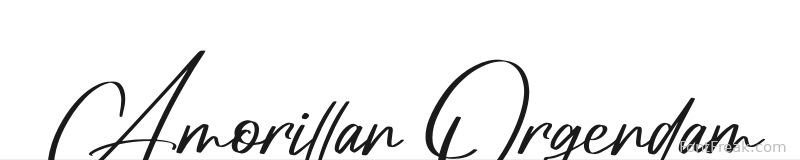
Amorillan Orgendam
About Amorillan Orgendam
The Amorillan Orgendam font by Perspectype Studio is a striking script typeface that exudes elegance and charm. This unique font, released in 2021 under a freeware license, showcases a blend of fluid curves and refined strokes, making it an ideal choice for a variety of design projects. The visual characteristics of Amorillan Orgendam include a graceful stroke weight that varies throughout the characters, creating a sense of movement and sophistication. The contrast between thick and thin strokes adds depth, while the generous spacing between letters enhances readability, ensuring that it stands out in any application.
This font is perfect for a range of specific use cases, such as wedding invitations, where its romantic flair can set the tone for a special day. It also shines on movie posters, capturing attention with its artistic flair, and serves as an excellent choice for restaurant menus, adding a touch of class that complements gourmet cuisine. Small business owners can leverage the Amorillan Orgendam font for branding purposes, making their logos and promotional materials visually appealing to attract customers.
Targeting graphic designers, content creators, and small business owners alike, this font caters to anyone looking to elevate their visual communication. Its versatility makes it suitable for both digital and print mediums, ensuring that it fits seamlessly into any design aesthetic.
What truly sets the Amorillan Orgendam font apart is its ability to convey personality and style without compromising on readability. Its elegant design makes it memorable, allowing it to leave a lasting impression. For those interested in enhancing their projects, the Amorillan Orgendam font free download is an opportunity you won’t want to miss. Embrace creativity and sophistication with this remarkable typeface.